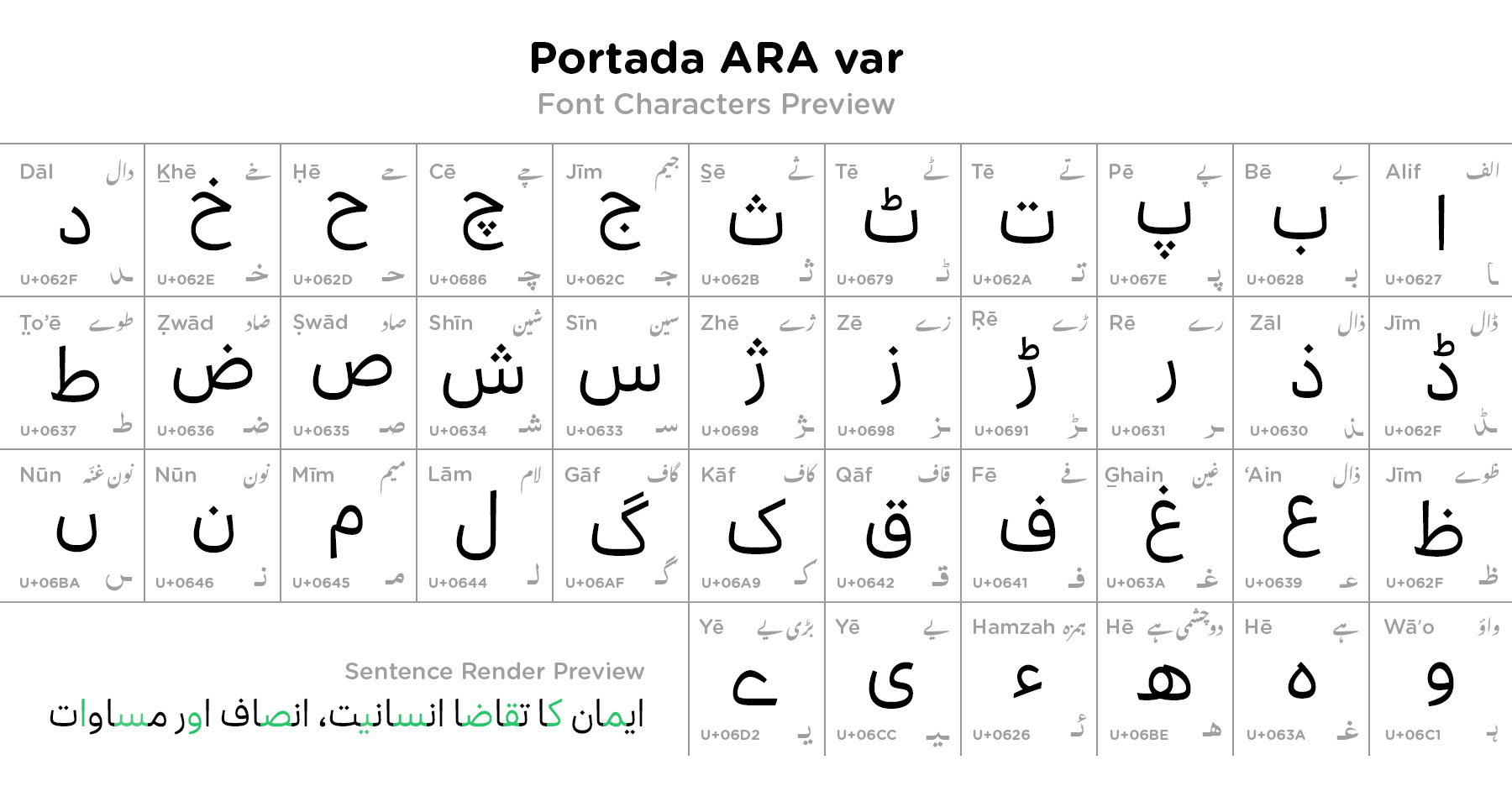
Portada Arabic is a modern Arabic font family and icon set designed by Veronika Burian and Jose Scaglione. It is clear and legible in constrained digital contexts and warm in print. Also available in a variable font format. In addition to the other multiscript Portada languages, Portada Arabic supports Persian, Urdu, Dari, Aimaq, Dehwari, Talysh, and Qashqa'i. Portada Arabic's capabilities are useful for digital publications, printed newspapers, your favorite novel, and all types of continuous screen reading. This family also meets many of the demands of developers, including user interfaces, data-intensive app displays, and even one-word directives and dialogs. It is a unique Arabic font designed for usage in print and digital media, particularly for large-scale, clear-screen use. Its collection includes four text styles, six display styles, two icon sets, and two changeable fonts. Moreover, it has an extensive charet of 754 characters and 814 glyphs. The font styles have wider spacing and lower contrast than the display; when printed, these subtleties provide warmth to paragraphs. Portada Arabic's display styles make minor alterations while lowering the individual width of each character and maintaining the interior space clear, all to maintain digital clarity. This font family consists of 2 weights, including: